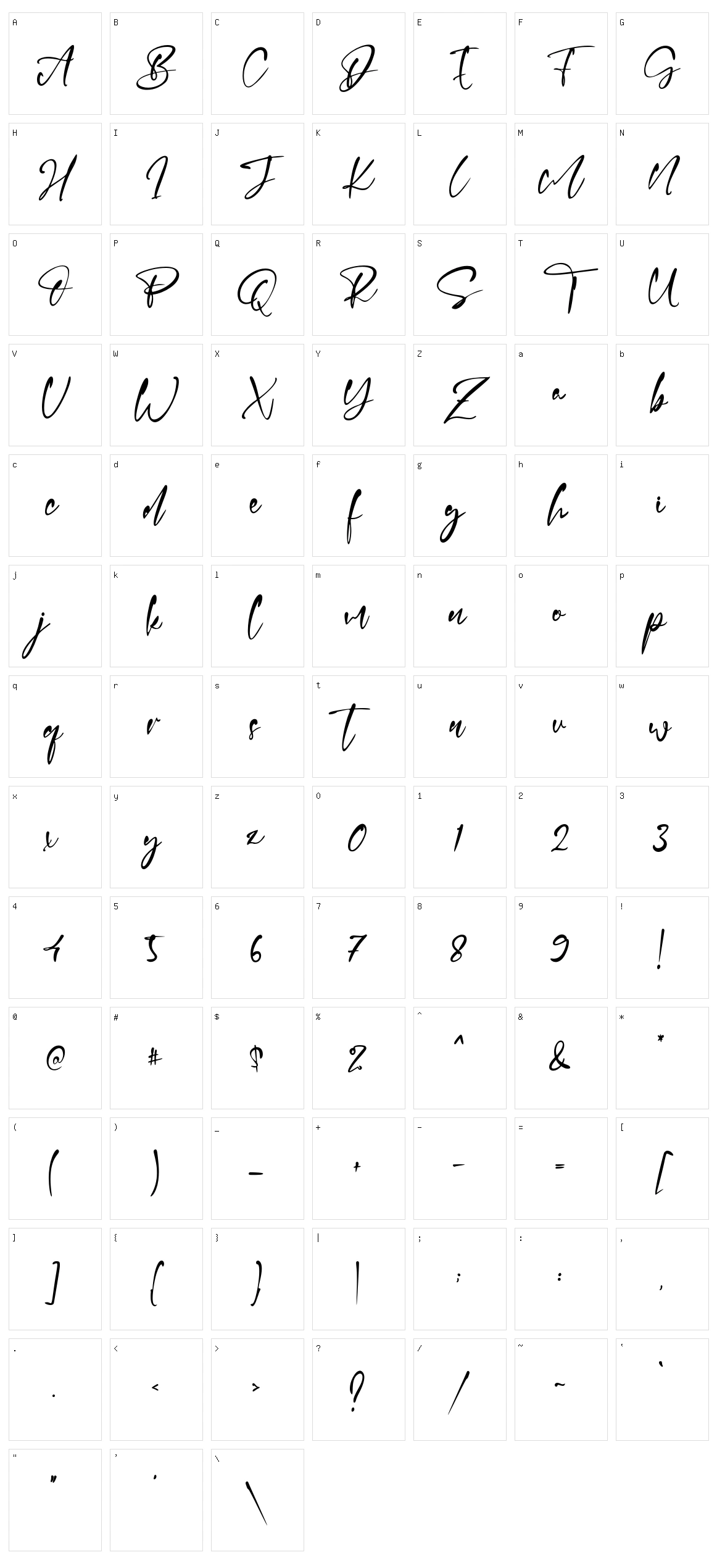
The free font Belovedays is carefully designed by Kong Font, showcasing a thoughtful balance of creativity and usability and falls under the Script font style. When you download the ZIP file, it contains only 96.99 KB of font files, making it lightweight and quick to download. Please review the license details below to understand permitted usage and distribution rights. If license information is not available, we recommend using this font for personal projects only or contacting the author directly for commercial usage permissions.